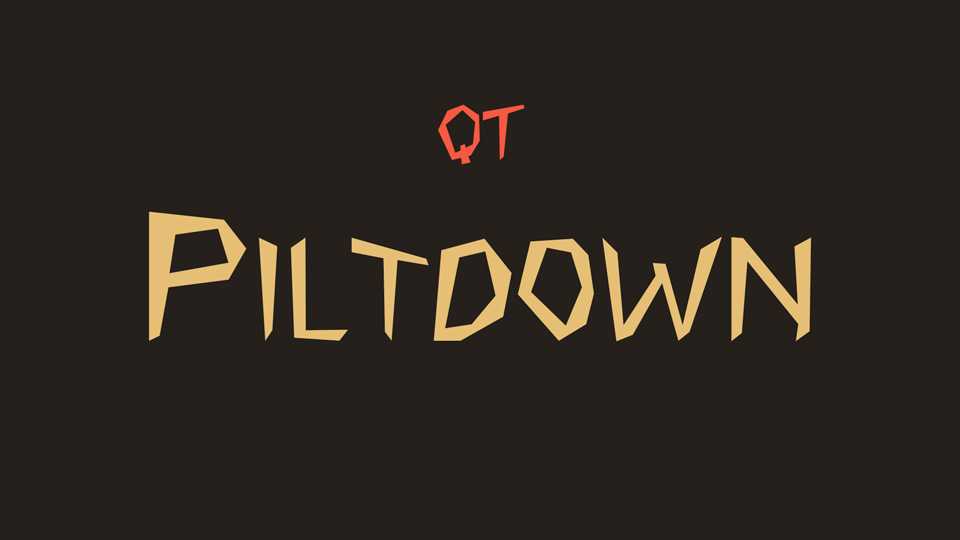
Download Piltdown is a cut-out style typeface inspired by an ancient inscription writing. Piltdown font works well for posters, headlines, illustrations, or short texts.